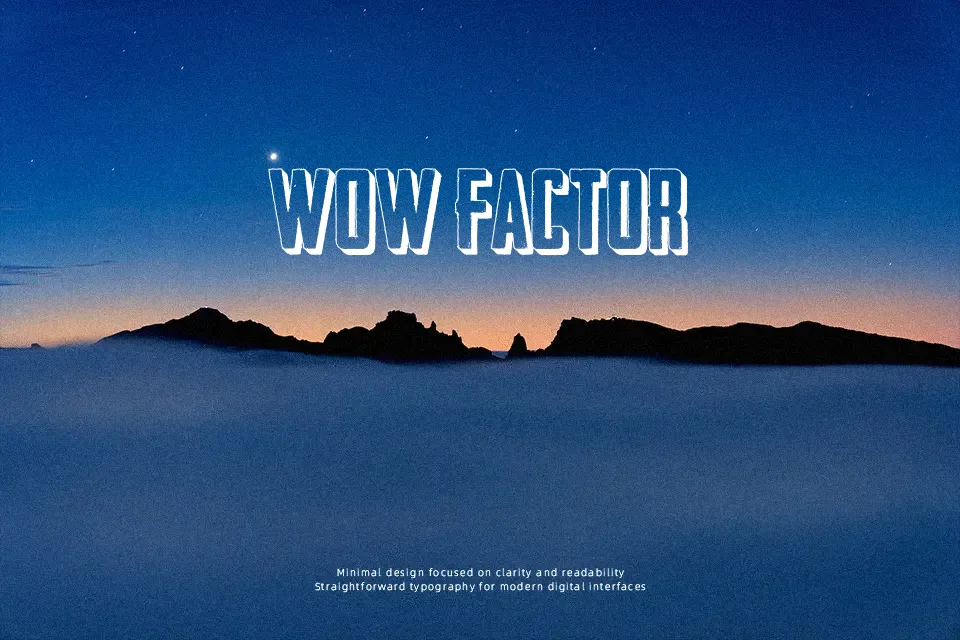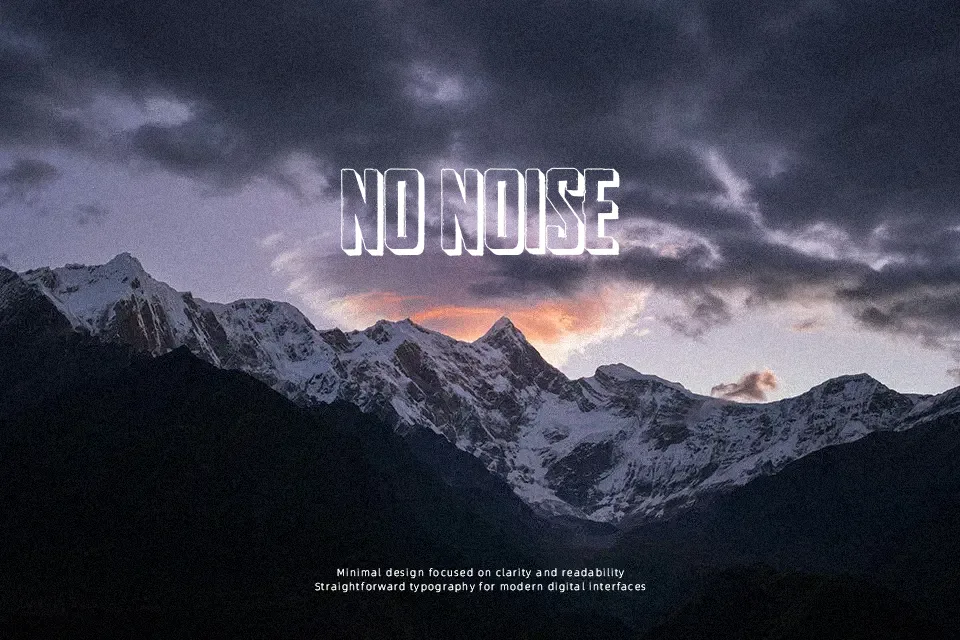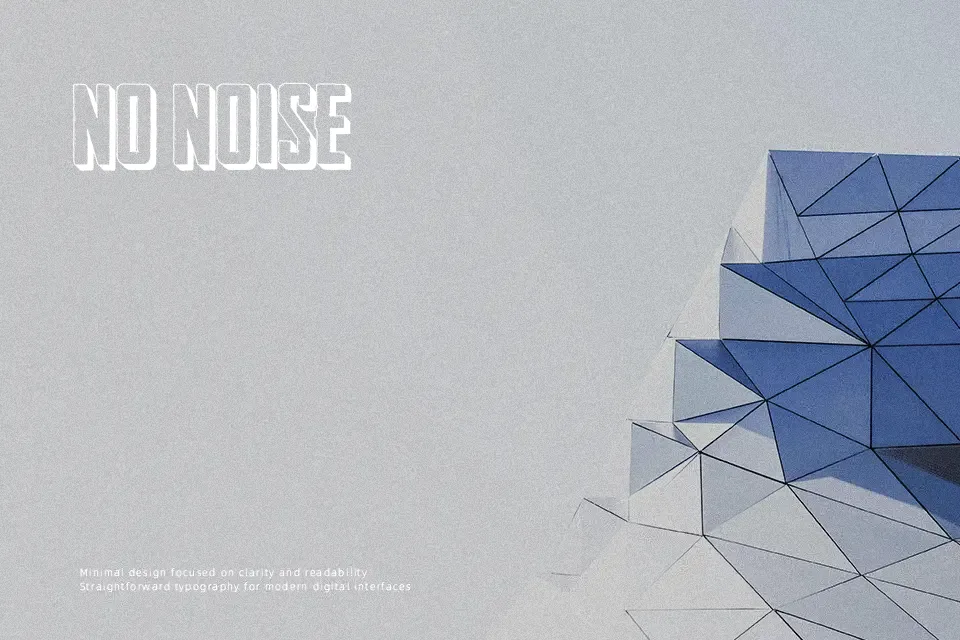
Outliner No.45 Font
Designed by KC Fonts
Outliner No.45 Font uses narrow, all-capital letterforms built from thin outline strokes and visibly distressed breaks. The tall proportions and close-fitting rhythm create a compact, poster-oriented texture, while the interior space keeps individual characters recognizable at larger sizes. Numerals and common punctuation follow the same outlined treatment, giving short compositions a consistent appearance. It works best for brief headlines, labels, and graphic-led layouts rather than extended copy. The distressed outlines can look fragmented in small text, so generous sizing is important for clear reading.
Best For: concert poster titles,apparel graphics,promotional headlines,product label text
Perfect for advertising, headline, and packaging, with a bold and condensed style.